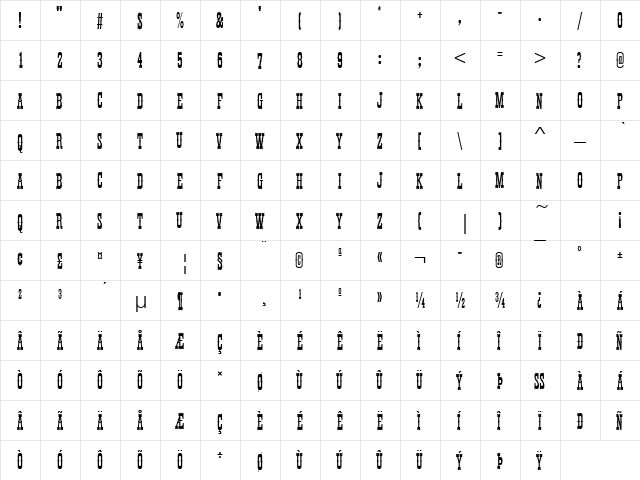
Thunderbird Becker Ext Cond Regular
Design Context for Thunderbird Becker Ext Cond Typeface
Thunderbird Becker Ext Cond offers clean, dependable letterforms without strong stylistic allegiance, making it a practical choice for designers who need flexibility. Its narrow stance lets it pack a punch even in space-constrained designs.
Pro Tip: Use Thunderbird Becker Ext Cond in both headline and body roles to test its range before committing to a single application.